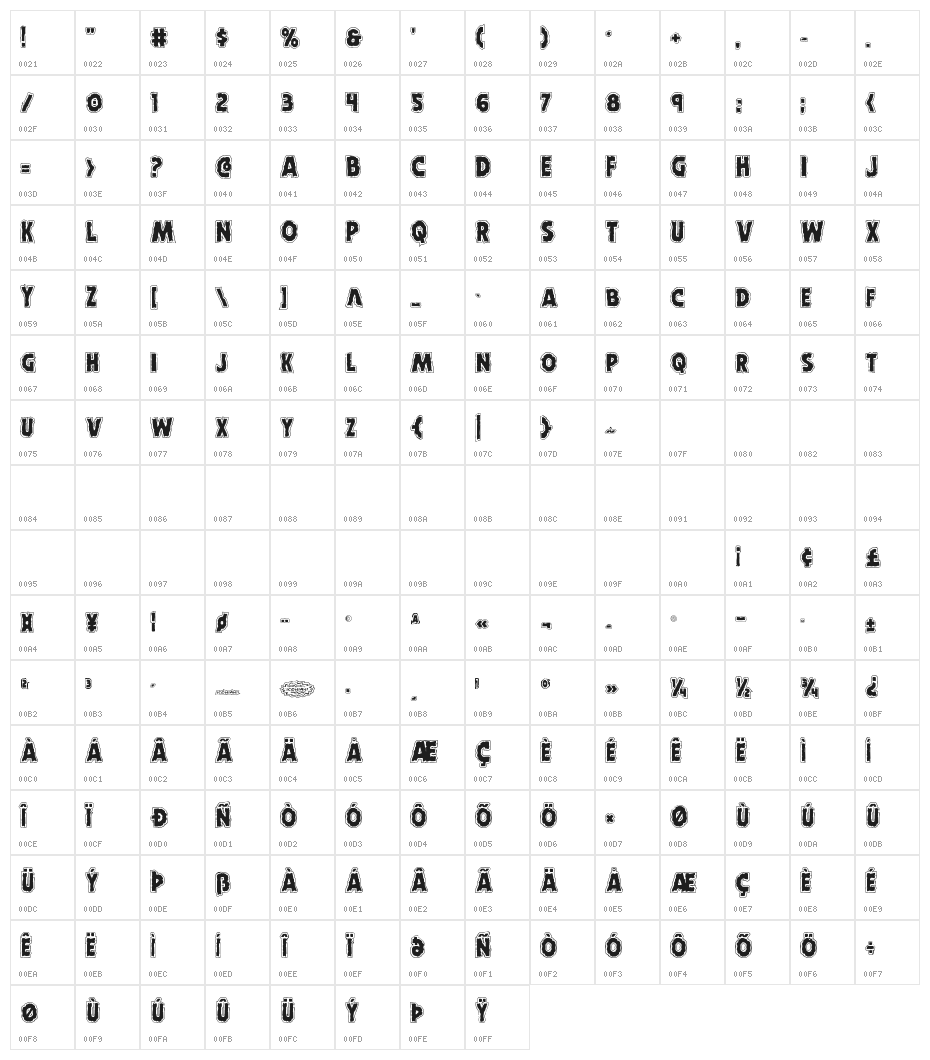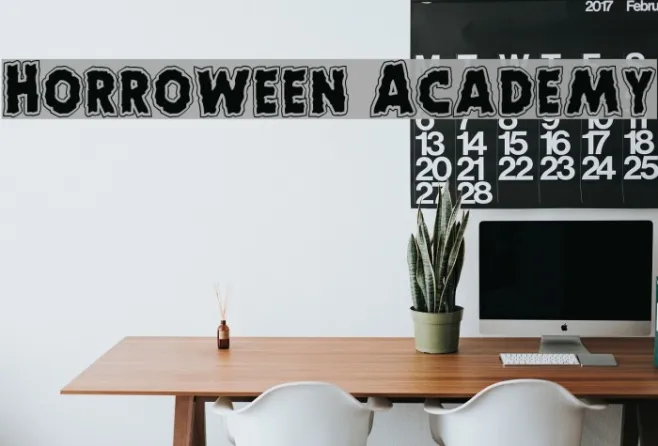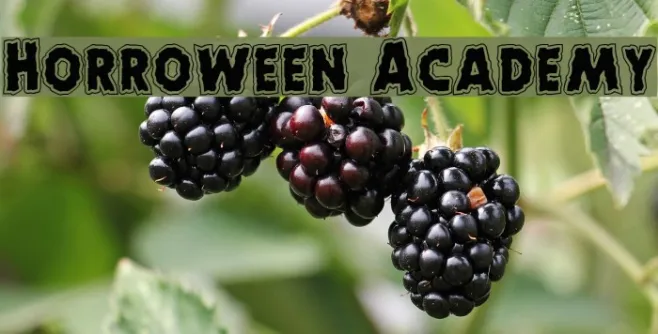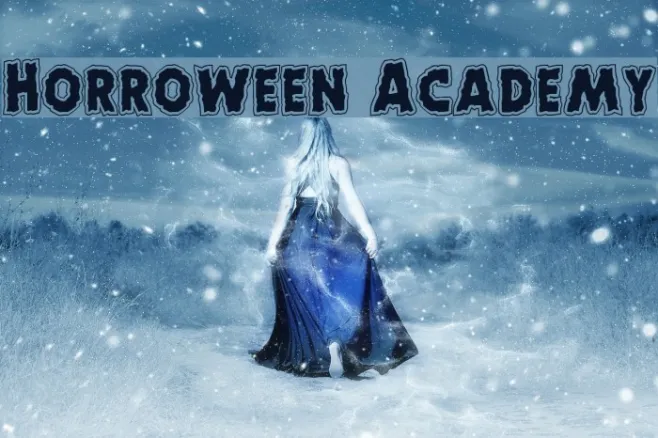
Horroween Academy Font
Horroween Academy Description
This font features a bold and playful design with a spooky, Halloween-inspired theme. The letters have a jagged, irregular outline that gives them a distressed and eerie appearance, reminiscent of classic horror movie posters. The boldness of the characters ensures high visibility, making it ideal for eye-catching designs. The uppercase and lowercase letters maintain a consistent style, while the numbers and special characters follow the same thematic approach, adding to the cohesive look of the font. This font is perfect for projects that require a fun yet slightly ominous touch.
HORROWEEN-ACADEMY UPPERCASE
HORROWEEN-ACADEMY LOWERCASE
HORROWEEN-ACADEMY OTHER CHARS
| Proposed Projects | Ideal for Halloween event posters, themed party invitations, horror movie titles, and spooky merchandise designs. |